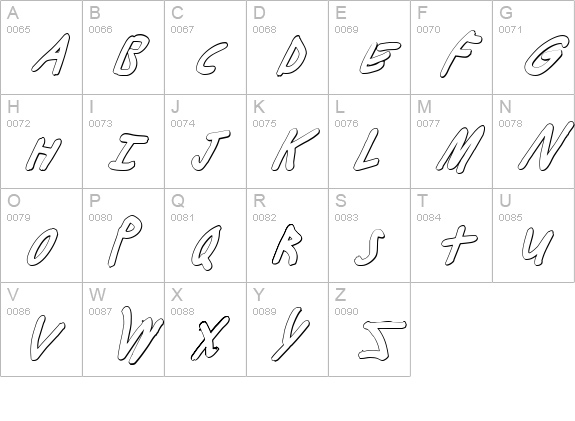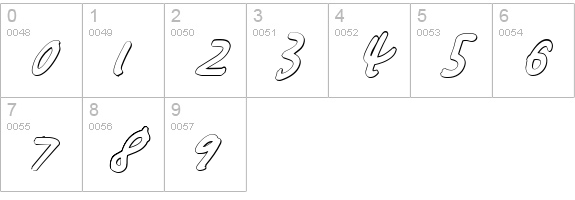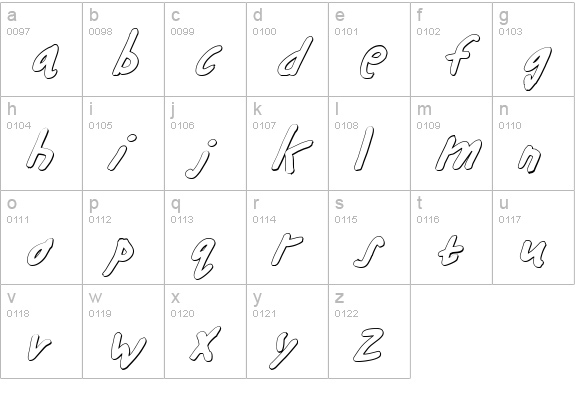
Buttons the Bear 3D Italic is a distinctive, italic variant in the Buttons typeface family \xE2\x80\x94 well suited to design and typography projects.
Buttons the Bear 3D Italic font is a charming and playful typeface that adds a touch of whimsy to any design project. With its unique 3D effect and italic styling, this font is sure to make a bold statement. The playful curves and rounded edges give it a friendly and approachable feel, making it perfect for children's books, invitations, and more. Best of all, Buttons the Bear 3D Italic font is available for free download at FontsMarket.com. Whether you're a designer looking to add a fun element to your projects or simply want to bring a smile to your audience, this font is a great choice. Download it today and let Buttons the Bear 3D Italic font add a touch of personality to your designs.